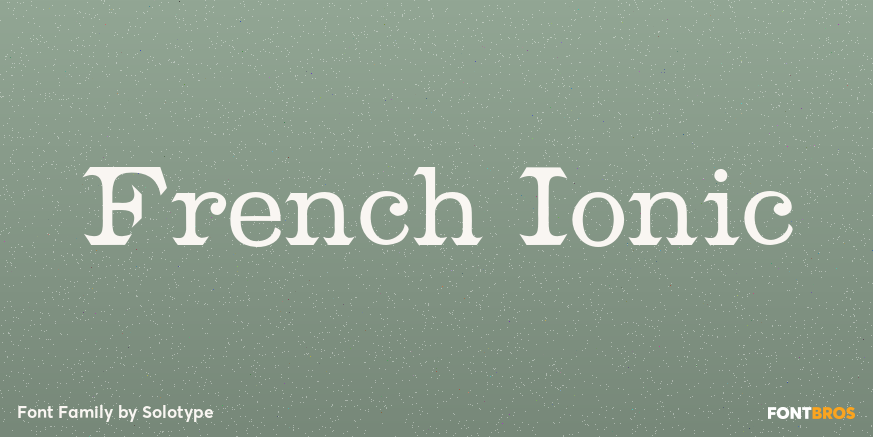
HomeFont BrosHistoricalFrench Ionic HistoricalSpecial Effect French Ionic FacebookXPinterestWhatsApp 1 of 1 About French Ionic This would be a Clarendon if it weren\’t for the cute serifs, which set it apart. Reads well in copy blocks.  DOWNLOAD ON FONT BROSThis font is sold and delivered by Font Bros. Font Canyon may earn a commission if you buy through this link. People also explored Vanessa Font Sunkist Font Meraldine Monogram Font Jungland Outline Bold Font Camping Font Mauthy Gheoise Font Casual Cat Mandala Monogram Font Britney Font Green Healthy Font 270 0 TagsFrench Ionic Font Previous articleMargheriteNext articleProhibition LEAVE A REPLY Cancel reply Comment: Please enter your comment! Name:* Please enter your name here Email:* You have entered an incorrect email address! Please enter your email address here Website: Save my name, email, and website in this browser for the next time I comment. Personal Use Free Rasiday Personal Use Free Read more about this font Micahel Personal Use Free Read more about this font Burgie Personal Use Free Read more about this font Pelmeshka Personal Use Free Read more about this font BLOG Fonts That Capture the Spirit of New York City New York City is more than just a place—it’s an experience, a rhythm, a visual language... Free Fonts Risk: Why Free Fonts Can Be Dangerous for Designers To increase your work productivity, choose the most readable fonts. Top 10 Handwritten Fonts That Elevate Your Designs